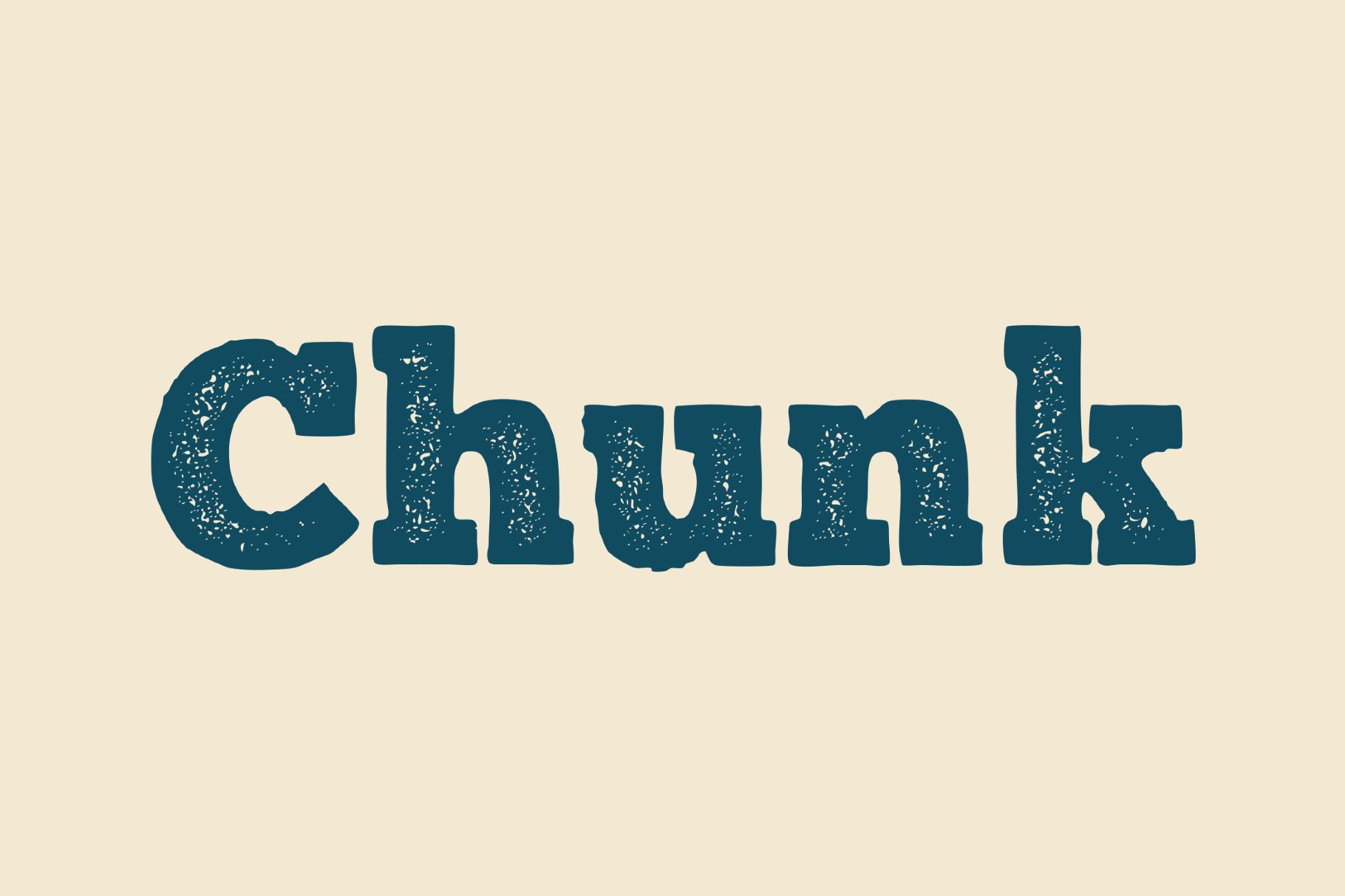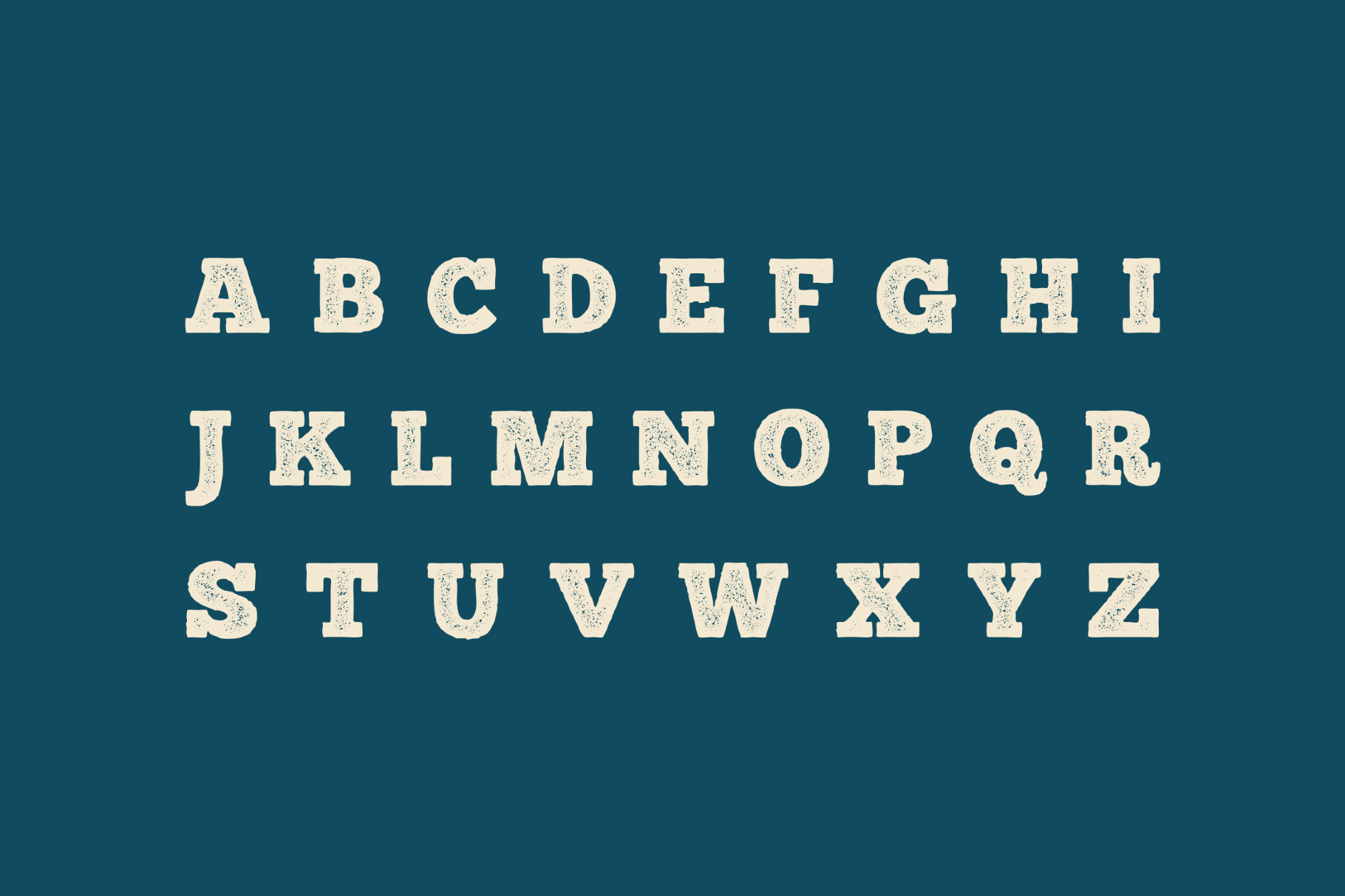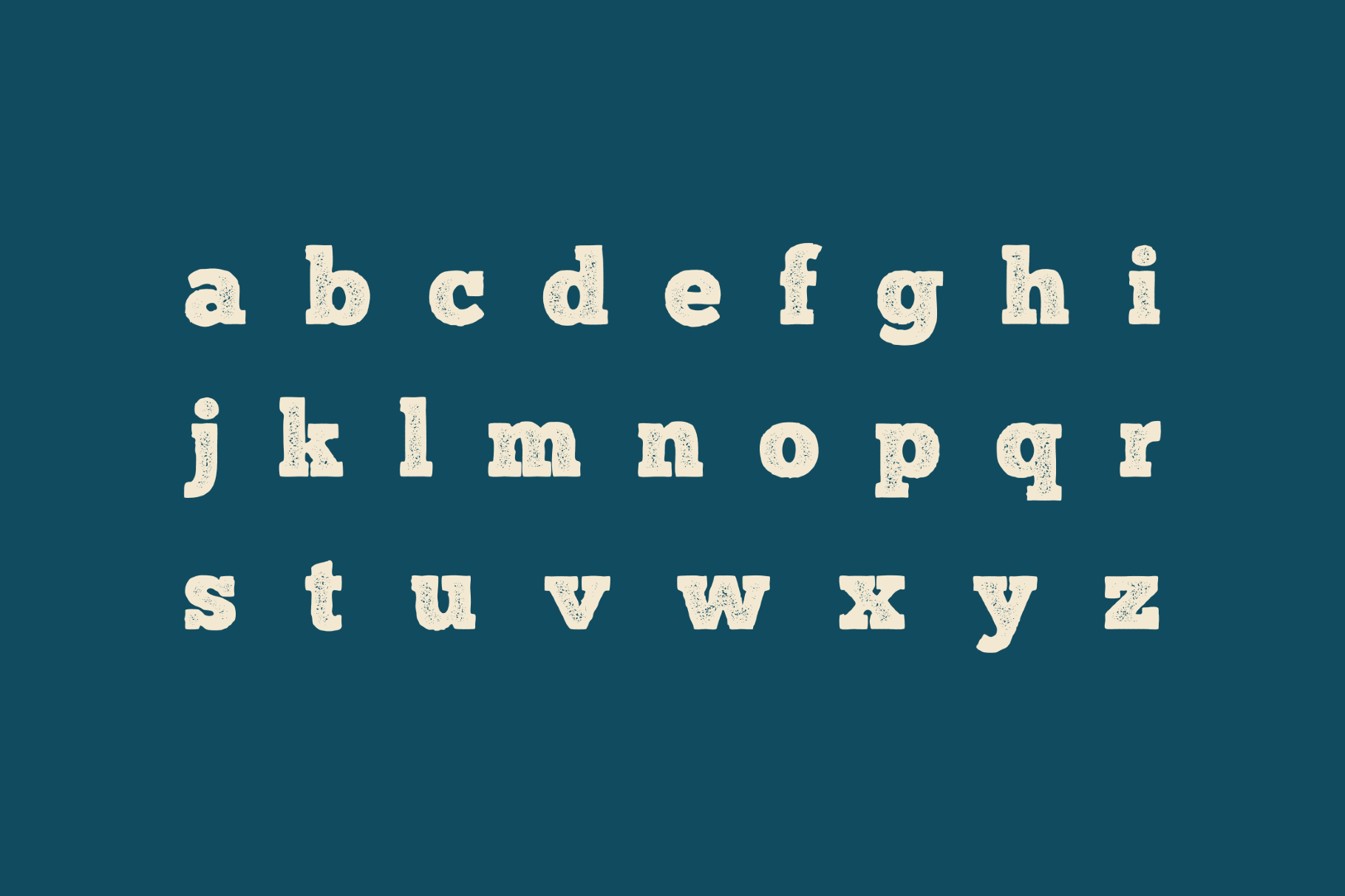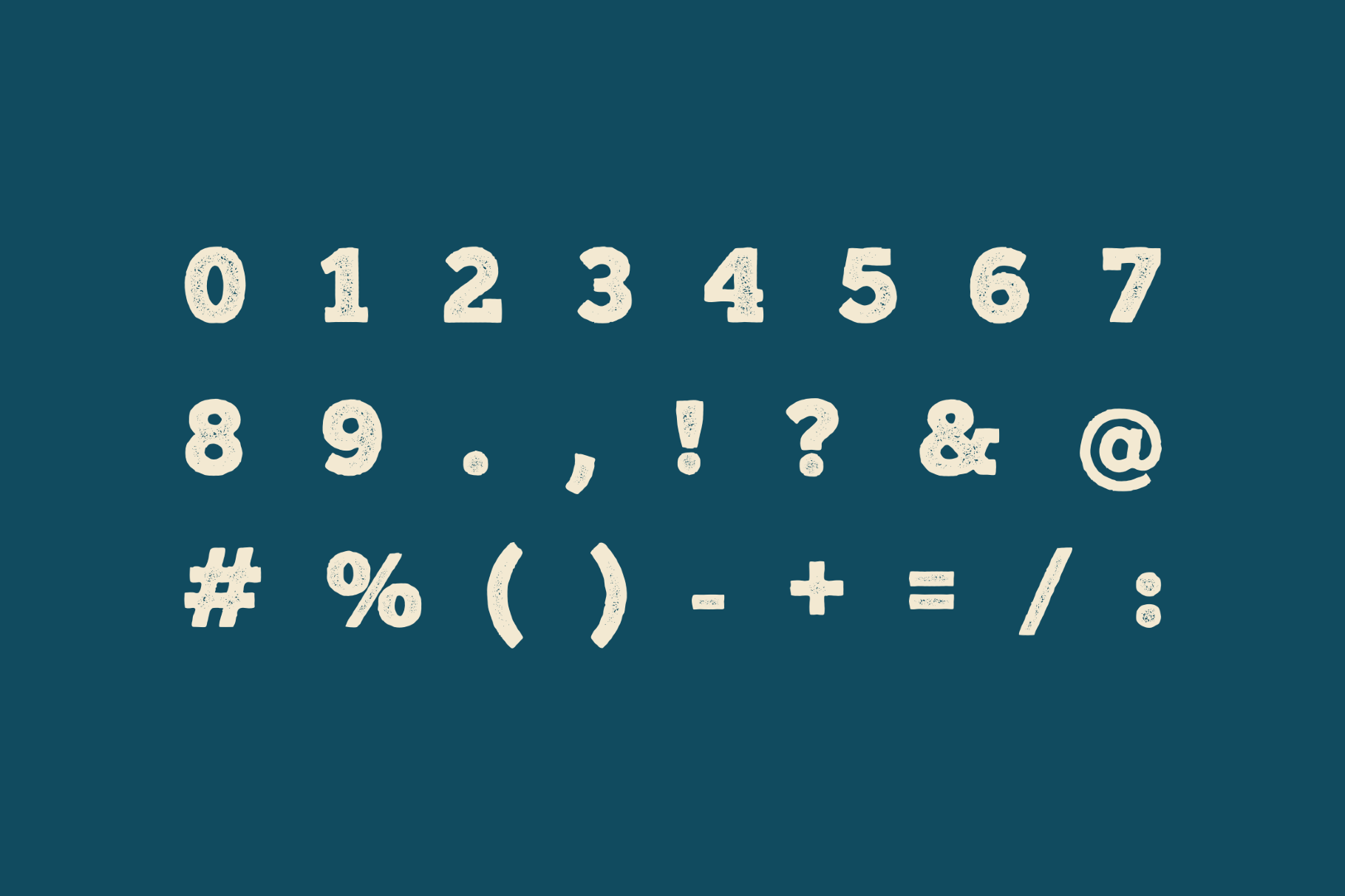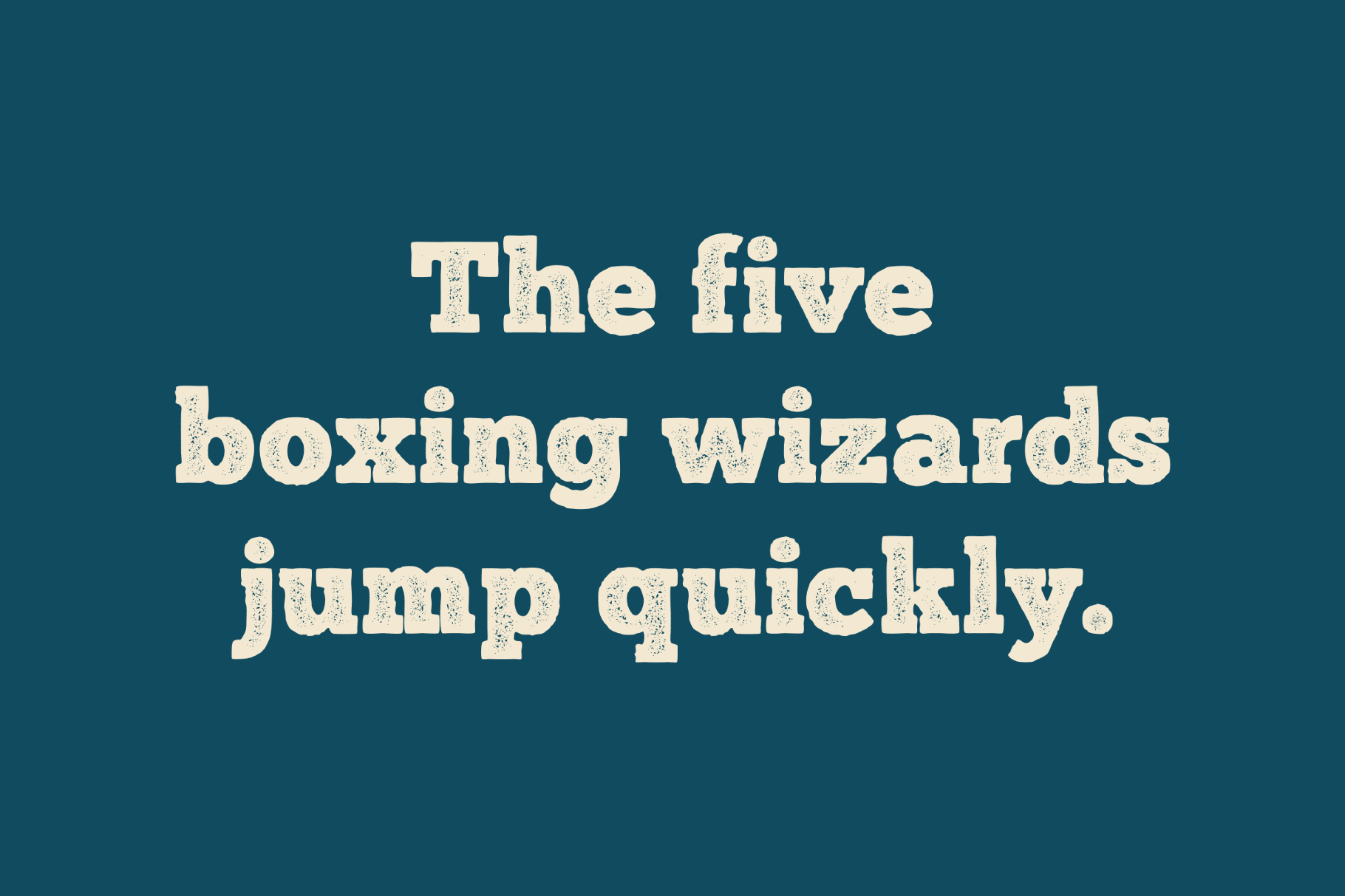
Chunk - American Woodcut Font Family
Chunk is a slab serif built on the overweight confidence of 1800s–1900s American wood type. It was inspired by Wild West wanted posters, county fair broadsheets, and lumbering newspaper headlines. Its extreme slab serifs and tight tracking make it a strong fit for vintage poster work, beer and whiskey labels, editorial titles, book cover design, heritage brand identity, and any display context that earns its weight through history.